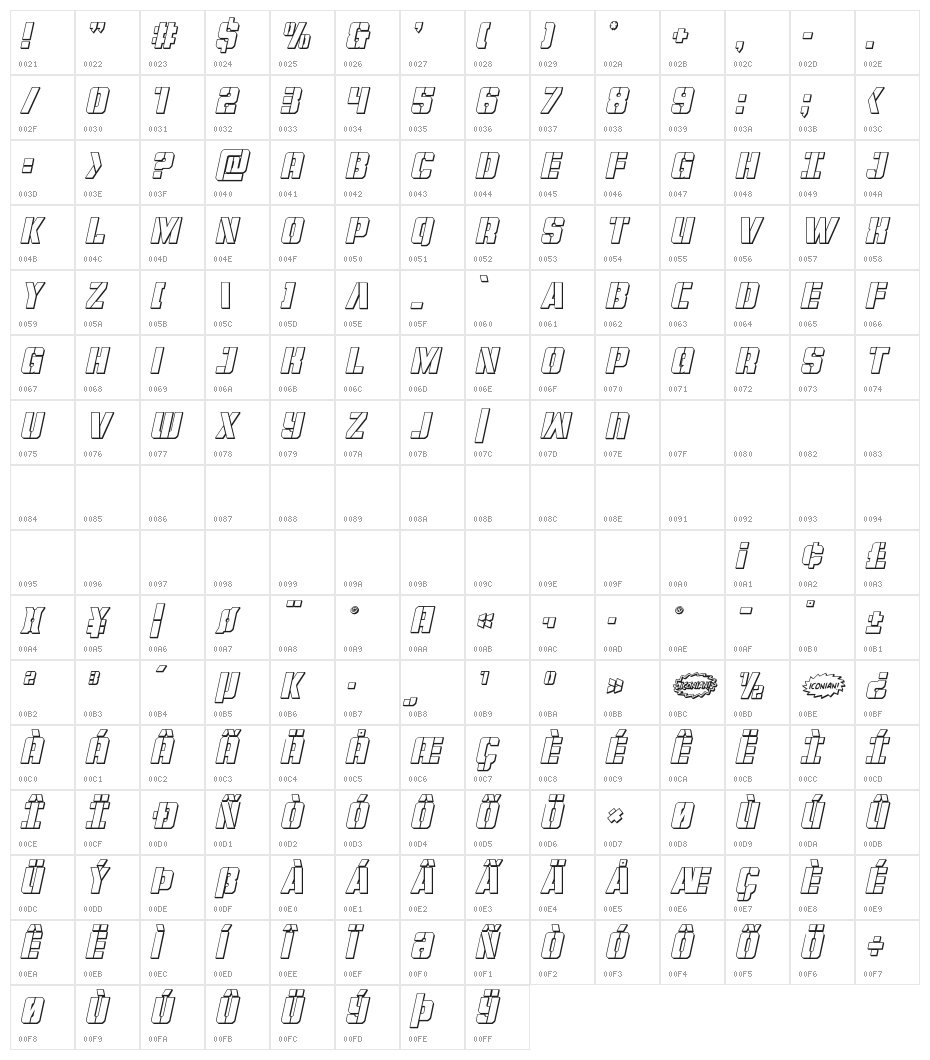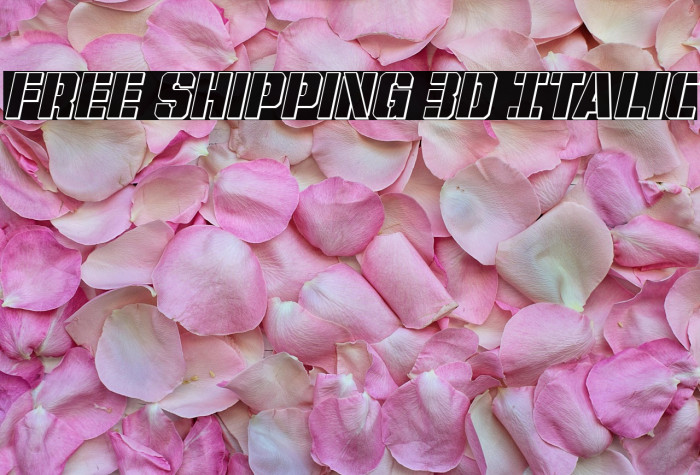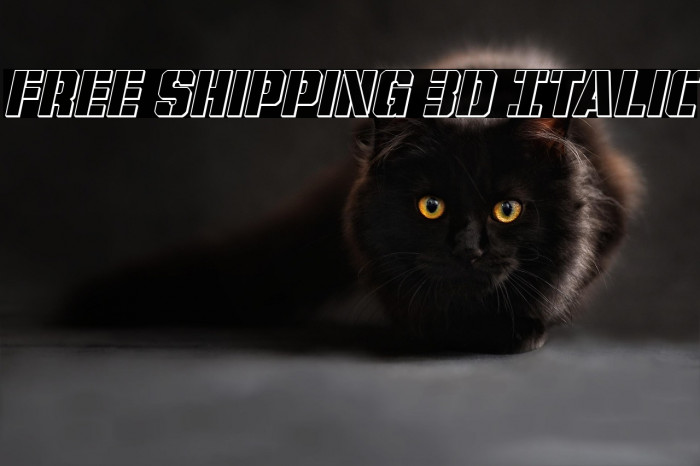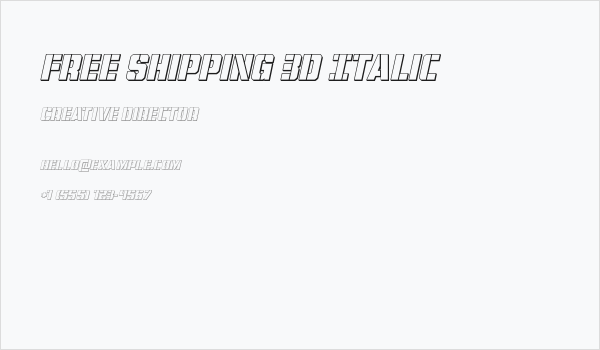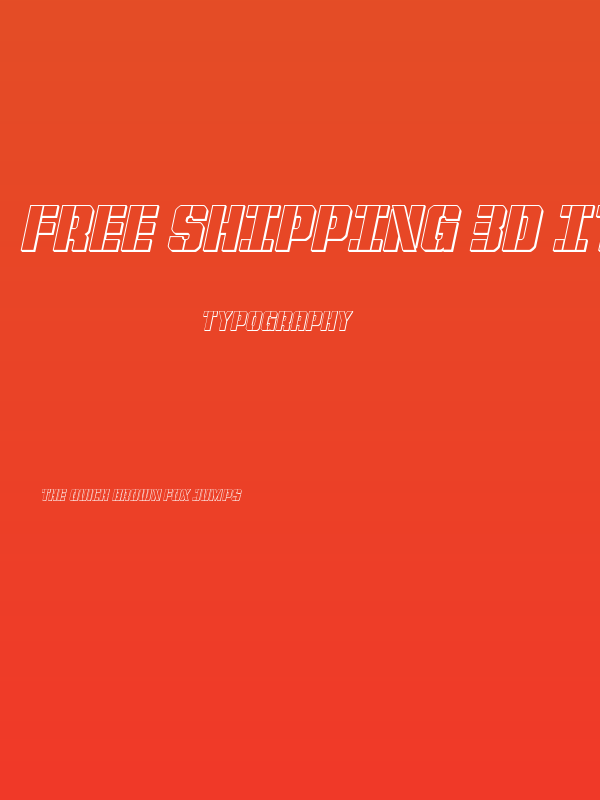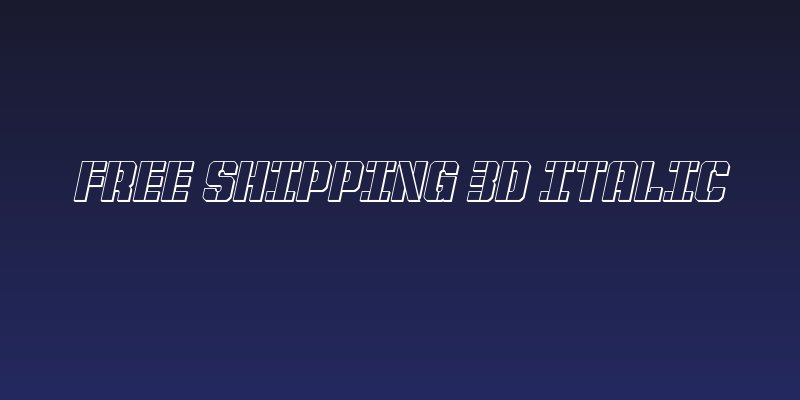
Free Shipping 3D Italic Font
Free Shipping 3D Italic Description
This font features a bold, three-dimensional design with an italic slant, giving it a dynamic and modern appearance. The characters are outlined, creating a striking visual effect that adds depth and dimension. The uppercase and lowercase letters maintain a consistent style, with sharp angles and clean lines. The numerals and special characters follow the same design principles, ensuring a cohesive look across all elements. This font is ideal for projects that require a bold statement and a contemporary feel.
| Proposed Projects | Ideal for branding, posters, headlines, and any design needing a bold, modern touch. |